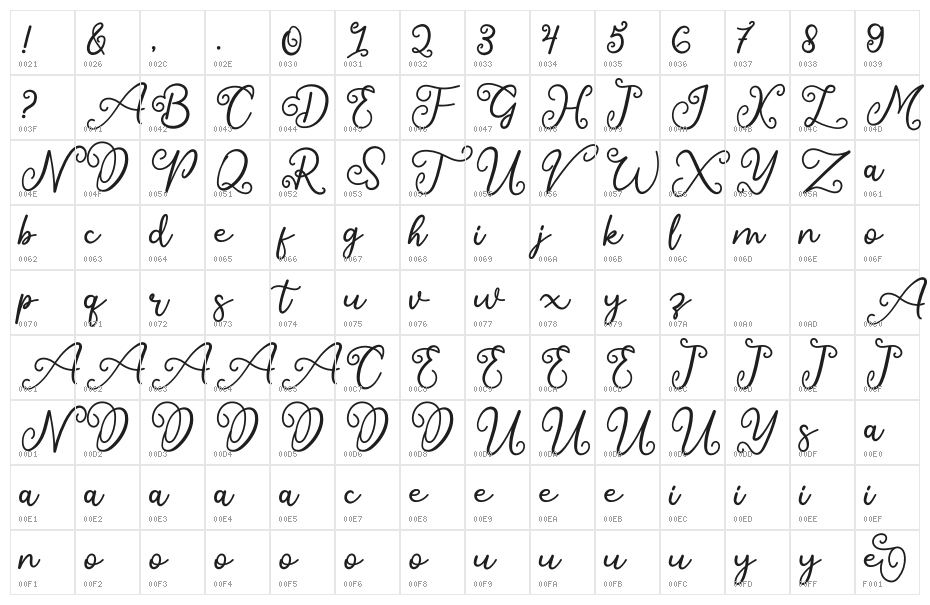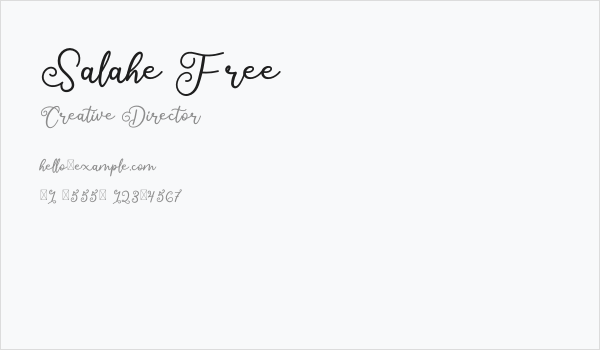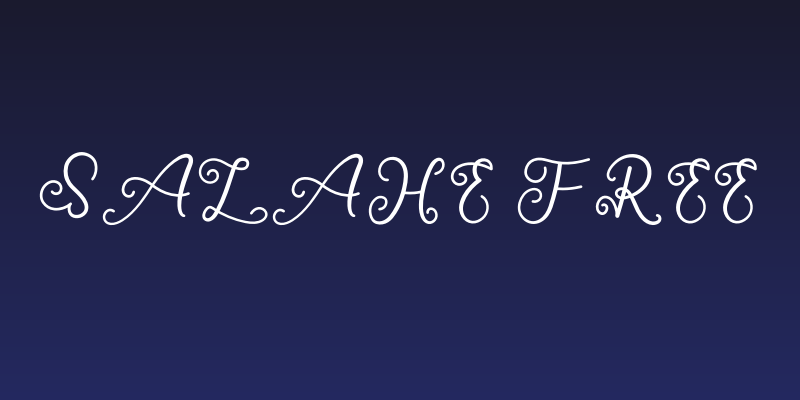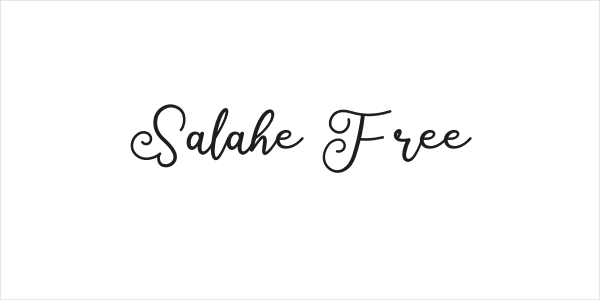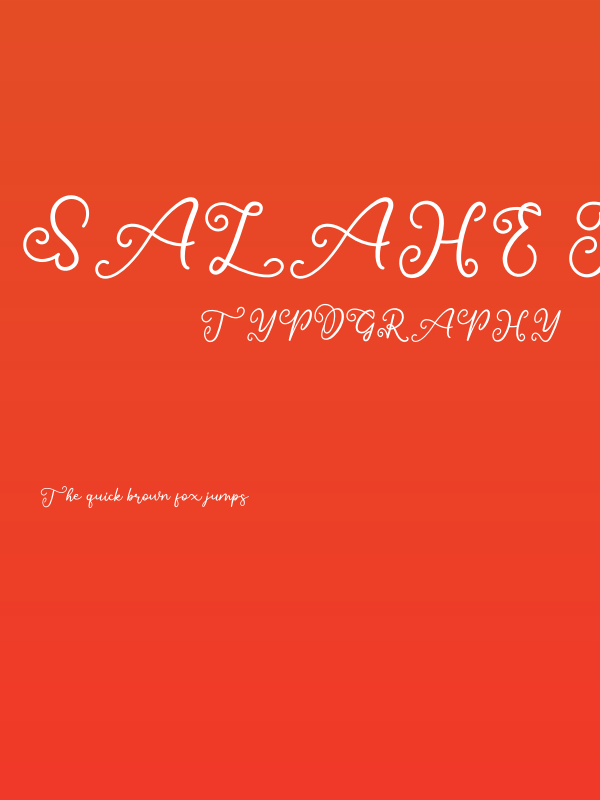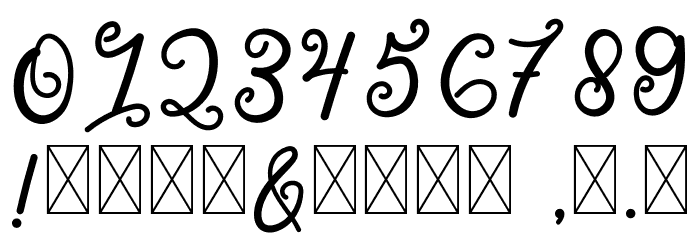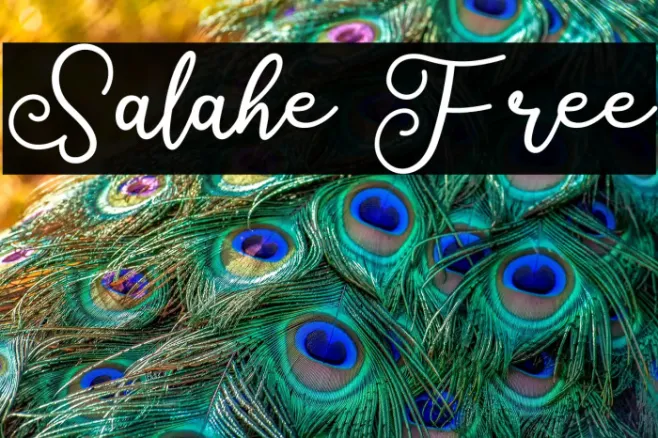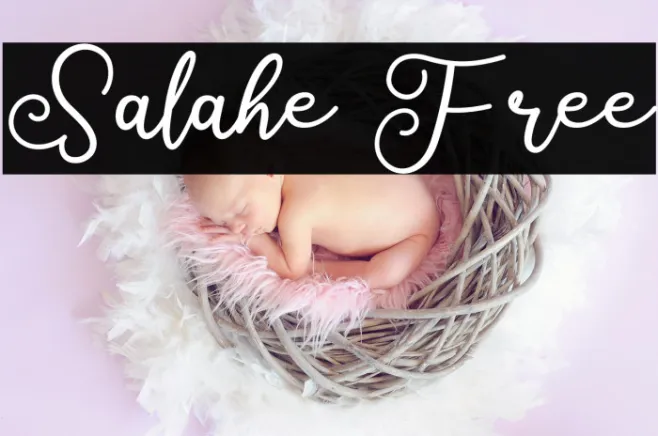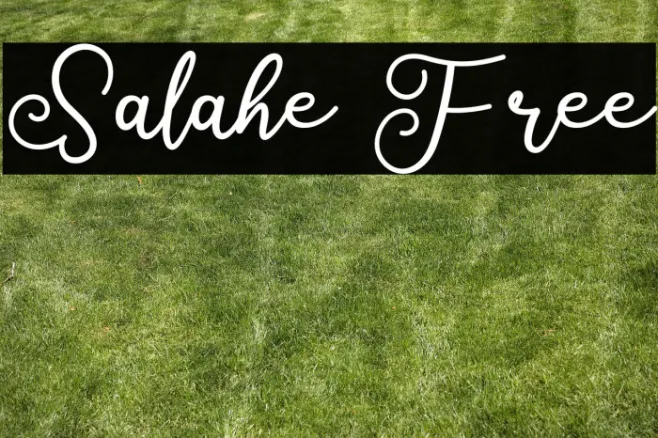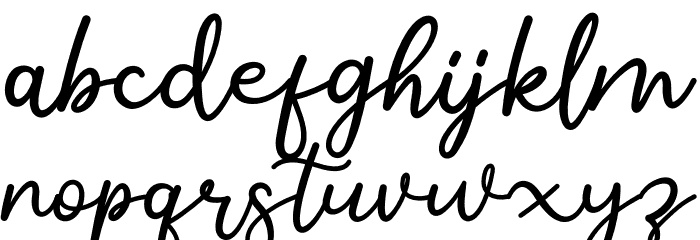
Salahe Free Font
Salahe Free Description
This font features a playful and elegant script style with a handwritten appearance. The uppercase letters are adorned with decorative swirls and loops, adding a whimsical touch. The lowercase letters maintain a smooth, flowing script that is both legible and stylish. Numbers are crafted with similar flair, featuring gentle curves and loops. The special characters, including punctuation marks, are designed to complement the overall aesthetic, making them suitable for creative and decorative purposes. This font's unique style is perfect for projects that require a personal, artistic touch.